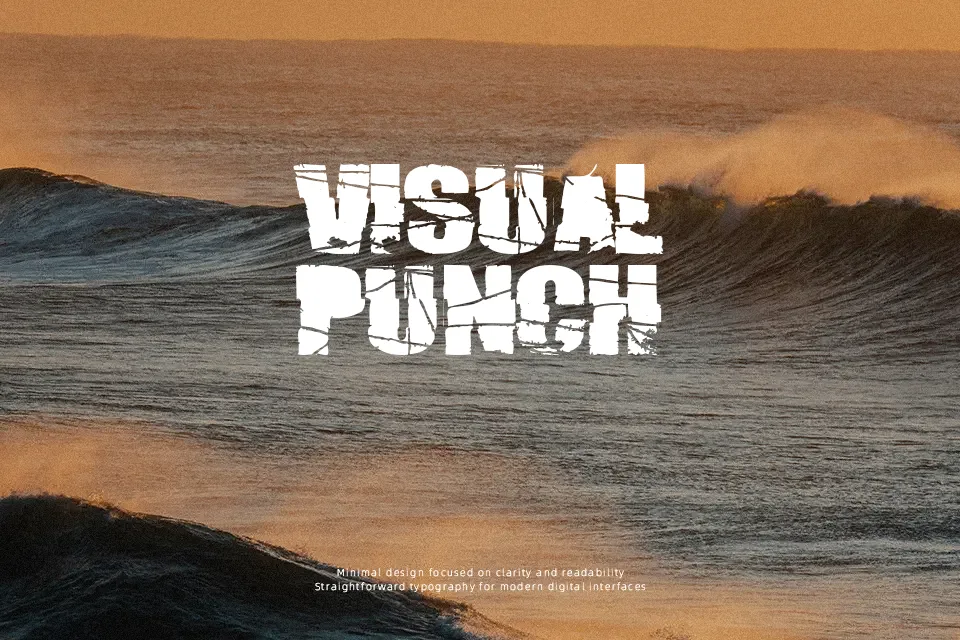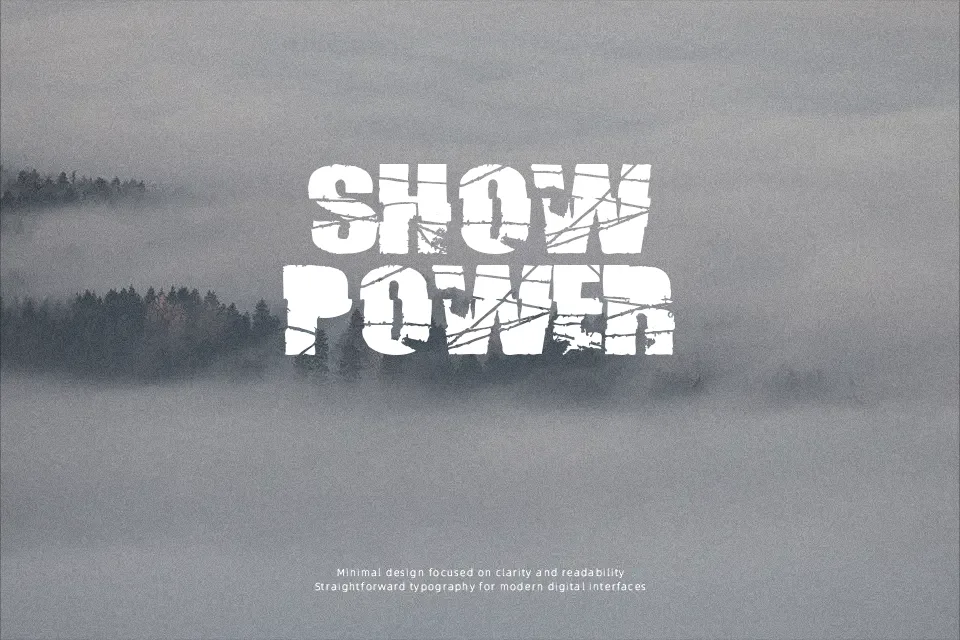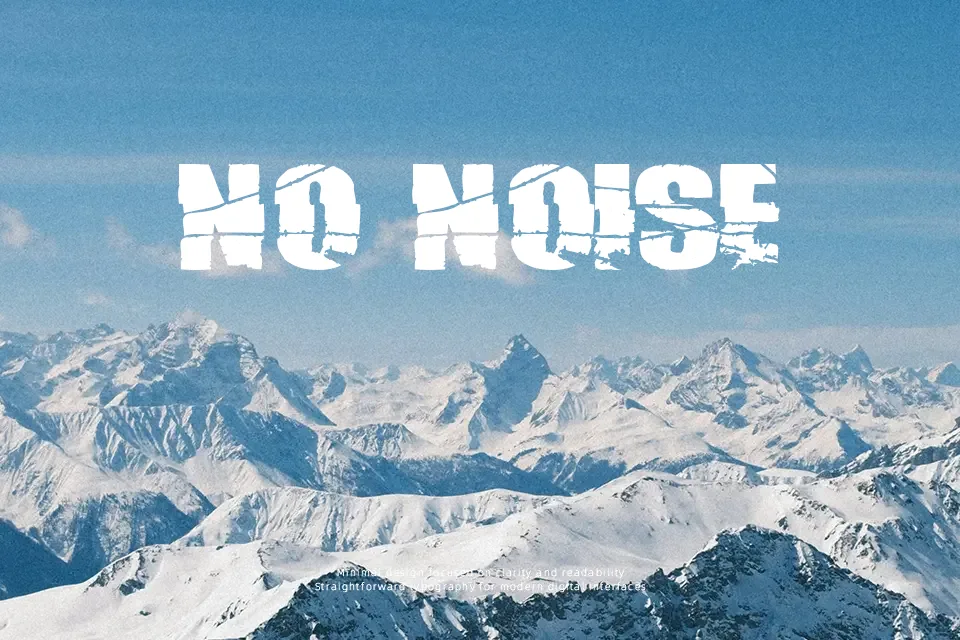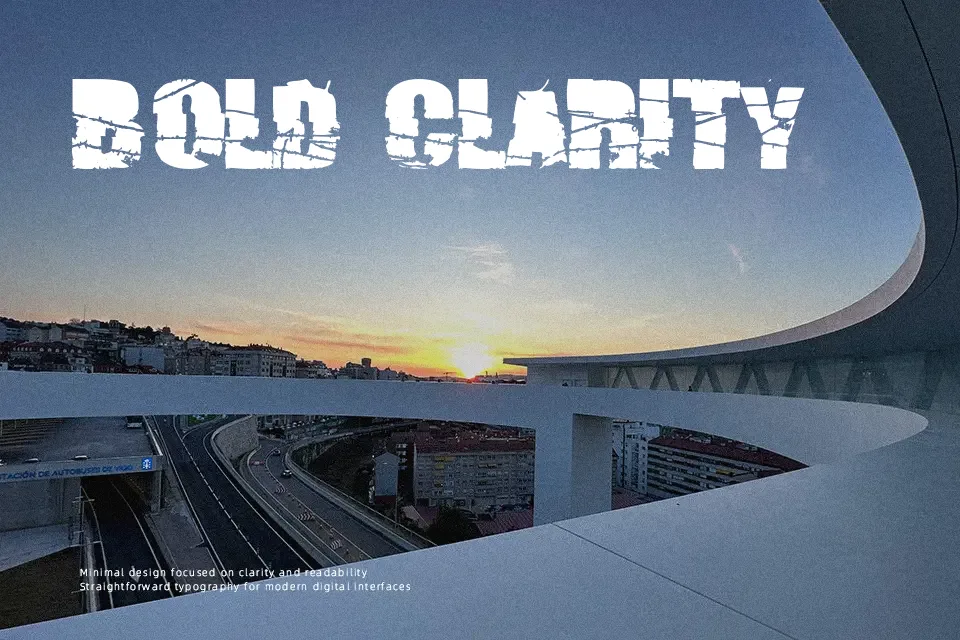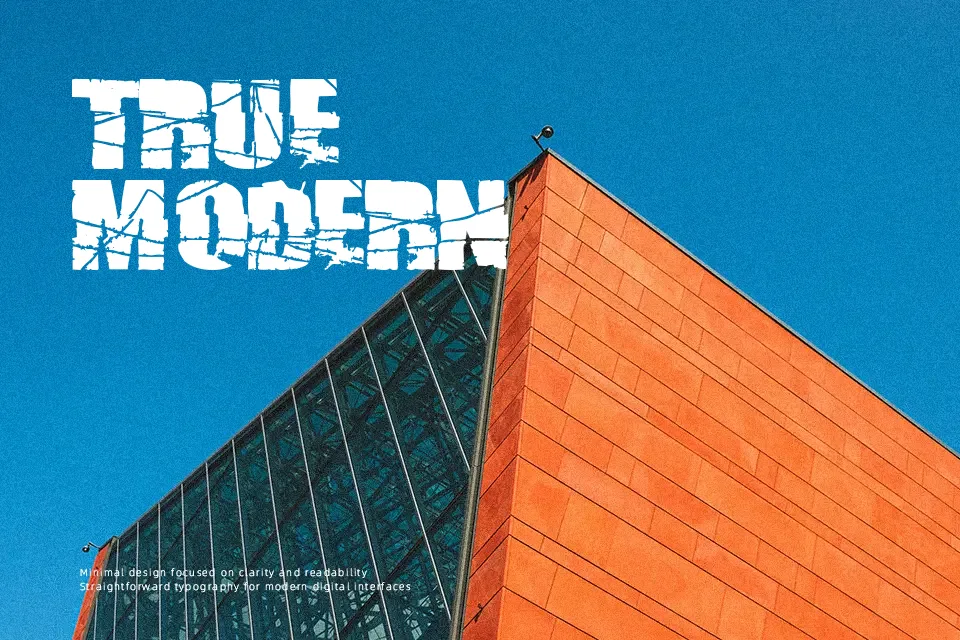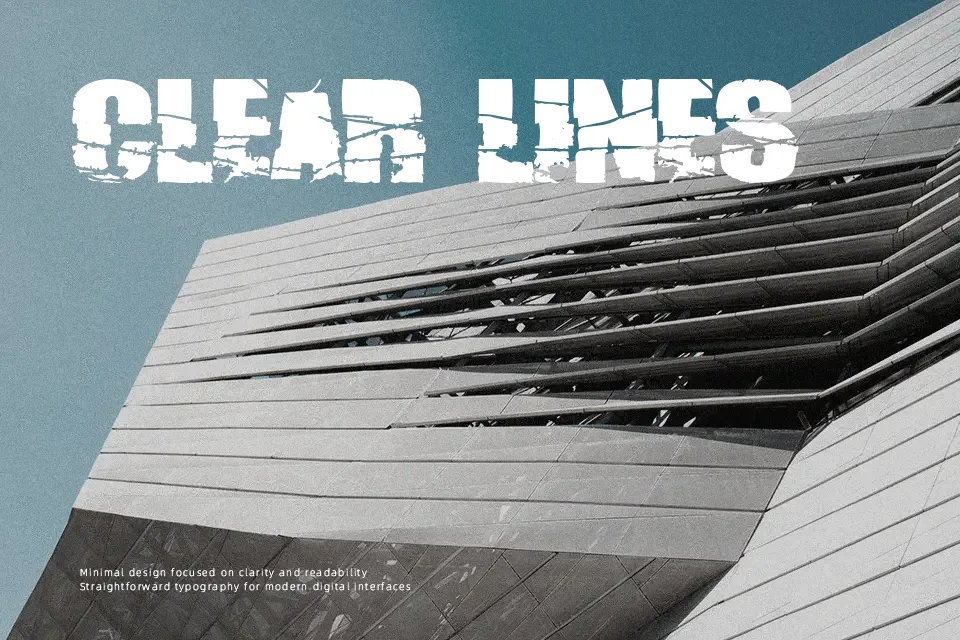
Broken 74 Font
Designed by Hydro 74
Broken 74 delivers heavy, blocky capitals that look chipped, cracked, and eroded, with thick strokes and irregular edges that push it firmly into grunge display territory. Spacing is tight and the letters feel compressed, so the text reads as a solid, distressed mass rather than neat lines. The font includes uppercase characters only, with no lowercase, numerals, or punctuation, which naturally steers it toward short, punchy wording. It shines on bold poster titles, merch graphics, game splash screens, or movie key art where a rough, urban energy is more important than fine detail. For body copy, small captions, or polished corporate layouts, the heavy distressing and limited character set quickly become a constraint rather than a style advantage.
Grunge or urban poster headlines
Streetwear or band merchandise graphics
Gaming or movie title typography
Edgy branding lockups with short words
Body text or long paragraphs
Formal corporate or editorial layouts
Projects needing lowercase and numerals
Small-size UI or accessibility-focused text
Perfect for branding, film, and gaming, with a bold and decorative style.